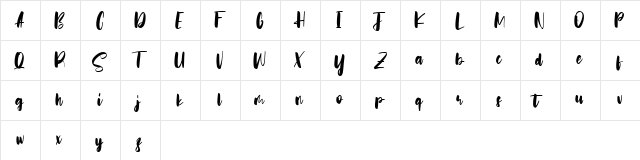
Ohayo Billie Regular Font Preview
Ohayo Billie Regular
Ohayo Billie Regular Font Details
| Foundry | Vunira |
| Designer | Vunira |
Design Context for Ohayo Billie Typeface
Ohayo Billie is a composed and adaptable typeface that performs quietly and consistently across a wide range of design contexts.